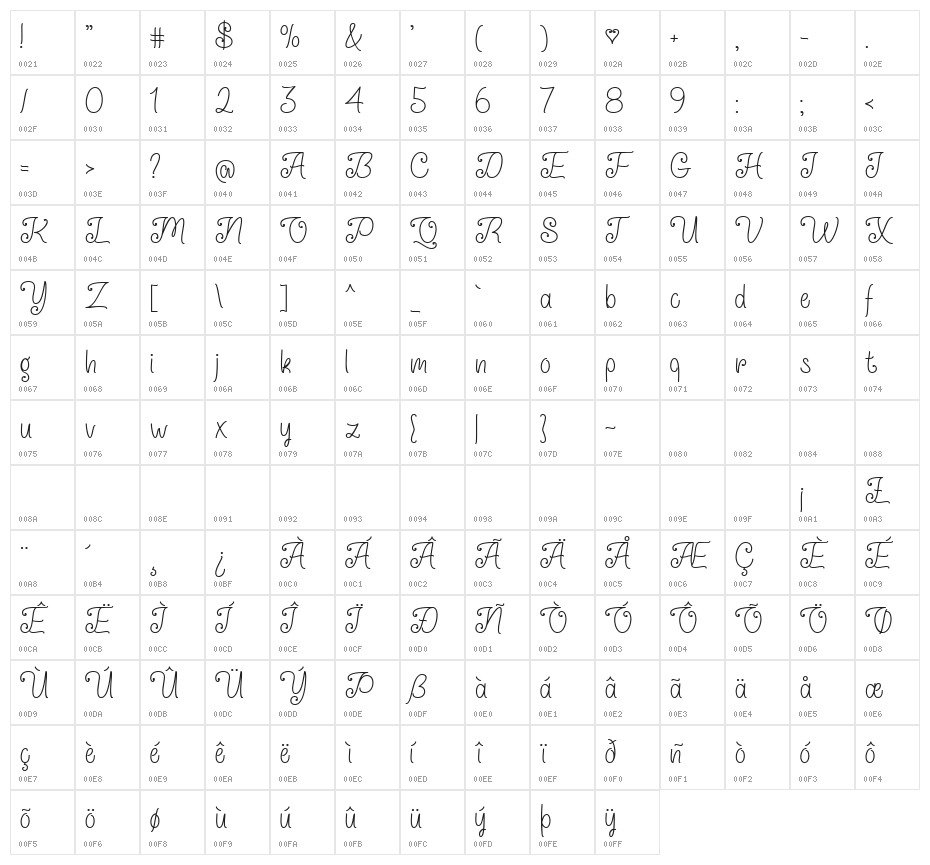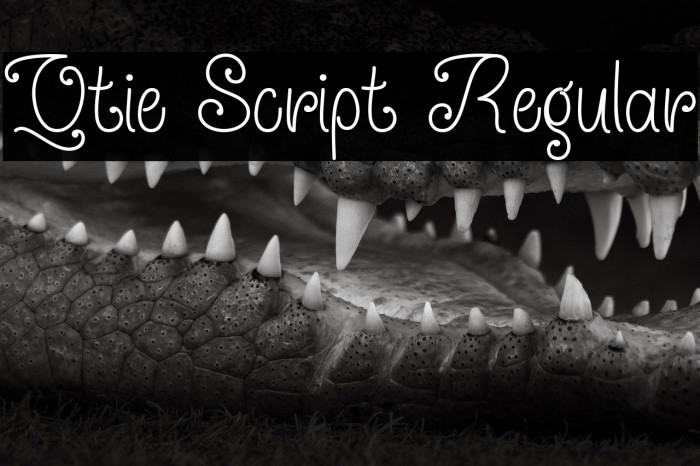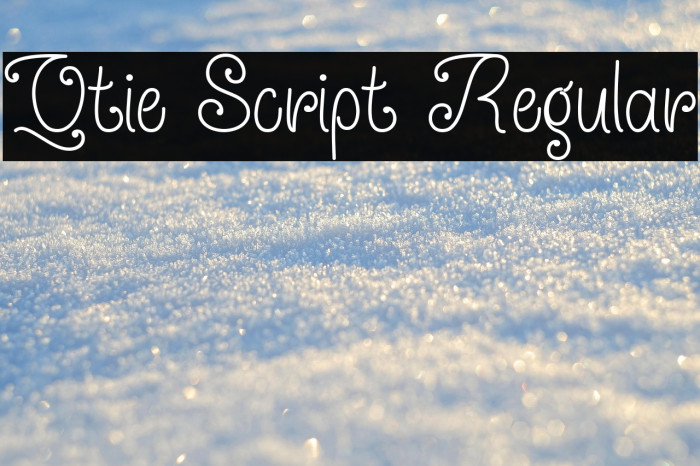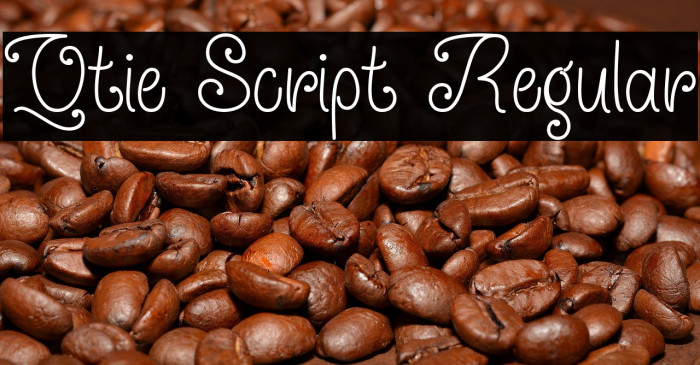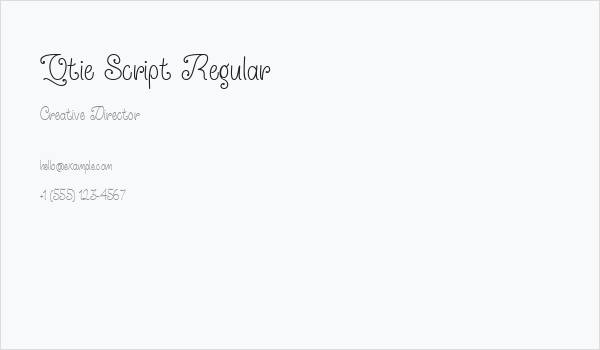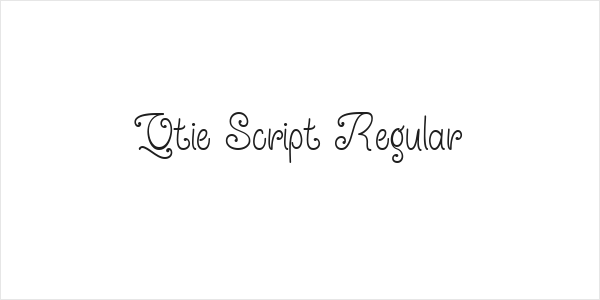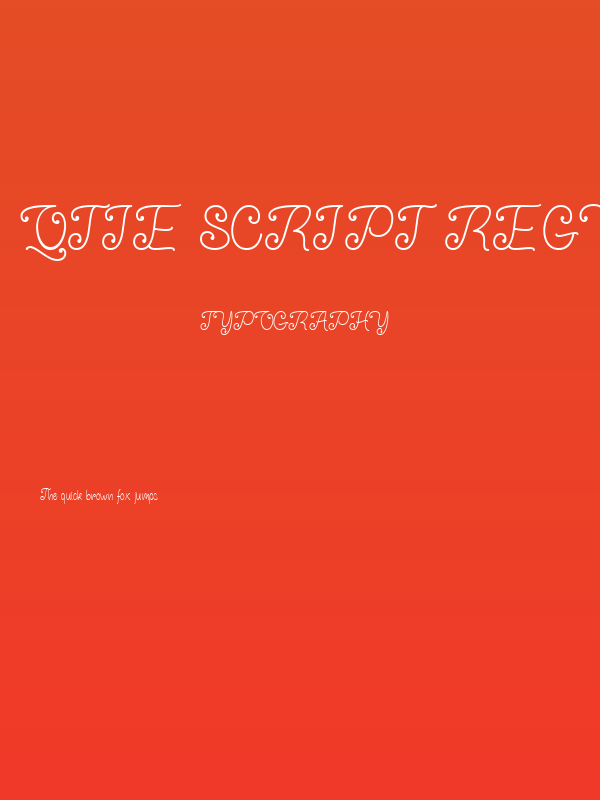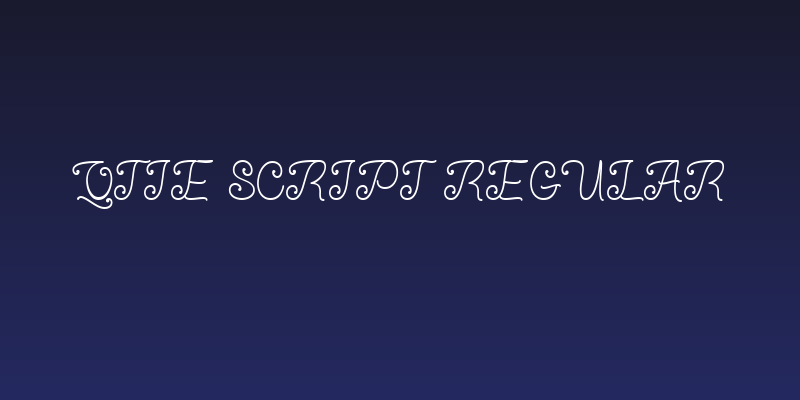
Qtie Script Regular Font
Qtie Script Regular Description
This font features a playful and whimsical script style with a hand-drawn appearance. The uppercase letters are adorned with decorative loops and swirls, giving them a unique and artistic flair. The lowercase letters maintain a consistent flow, enhancing the font's casual and friendly vibe. Numbers and special characters are designed with the same playful touch, making them cohesive with the overall style. The font's strokes are consistent in width, providing a balanced look that is both charming and legible.
| Use Case | Logos, Invitations, Greeting Cards |
| Proposed Projects | Ideal for greeting cards, invitations, playful branding, and children's book covers. |